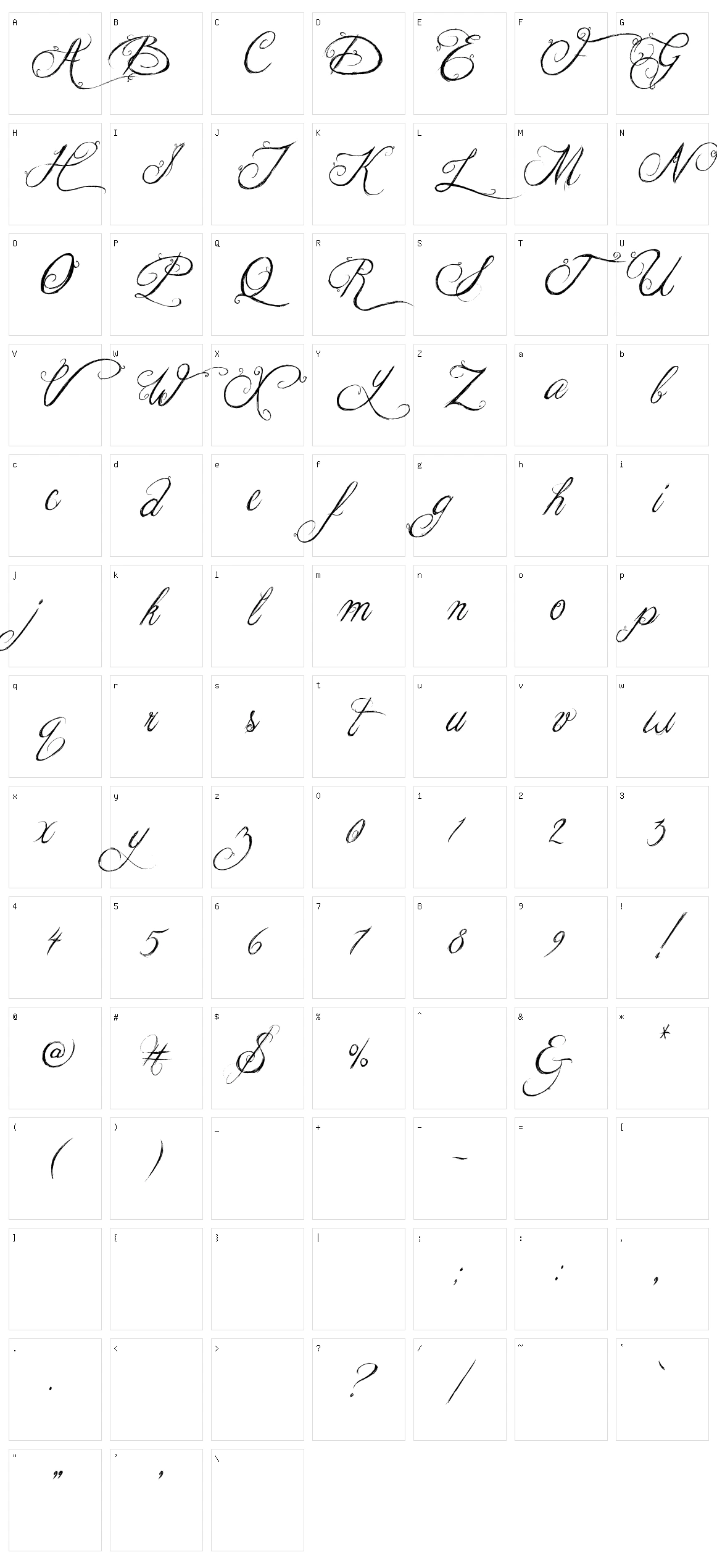
The free font Jellyka King's Hat is carefully designed by Jellyka Nerevan, showcasing a thoughtful balance of creativity and usability and falls under the Script font style. When you download the ZIP file, it contains only 546.59 KB of font files, making it lightweight and quick to download. Please review the license details below to understand permitted usage and distribution rights. If license information is not available, we recommend using this font for personal projects only or contacting the author directly for commercial usage permissions.